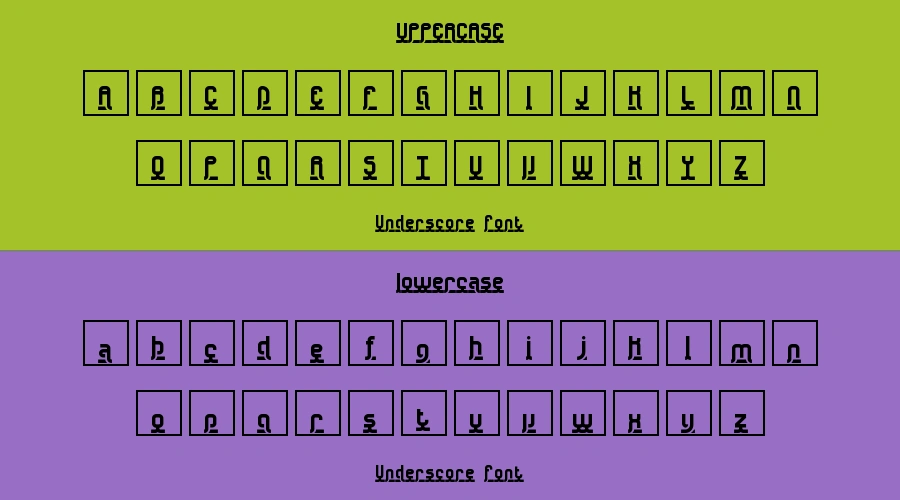
About Underscore Font
Underscore Font represents a sophisticated approach to type design, balancing commanding presence with professional standards. Perfect for marketing materials, this font family showcases impressive reliability and quality certification throughout its character set. Designers appreciate its versatility and reliability.
Designers will appreciate nuanced touches including precise joints and historical alternates, adding sophistication to any project. These features become apparent in section headers, where numerical alignment matters most. The careful treatment of counter aperture and market positioning ensures optimal performance.